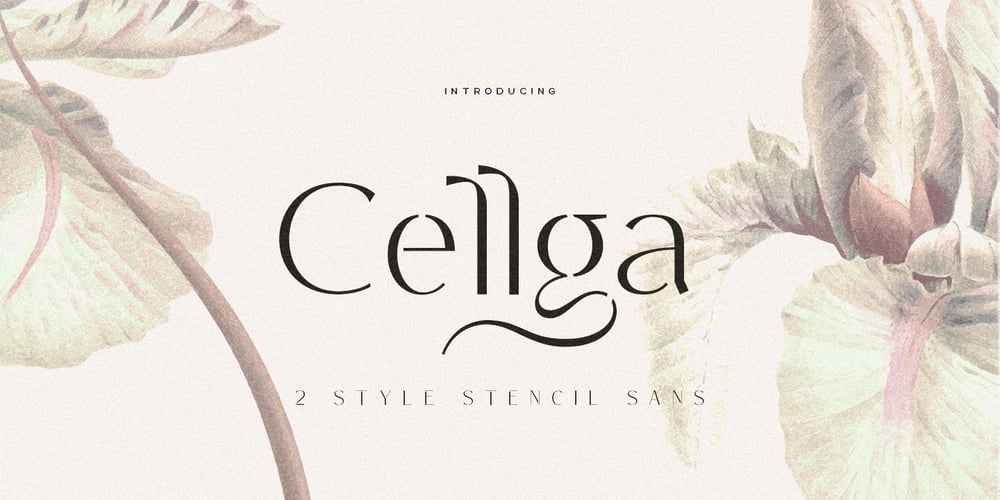
Cellga
Cellga font
Cellga Font Family was designed by Alit Suarnegara and published by Alit Design. Cellga contains 2 styles and family package options. We want to create a different feel for the stencil font style. Usually stencil fonts are synonymous with military, retro and bold characters, but here we created the Cellga font with an elegant and attractive stencil style for a modern design, combined with a subtle swash. In addition to swash in the Cellga font, there are also many alternative character shapes and unique Discreationary ligatures. So the Cellga font is very worthy of being a font collection on your computer for projects with a unique and charming elegant concept.Sans Serif typefaces such as “Cellga” are very easy to apply to any design, especially those with an elegant, modern and classic, besides that this font is very easy to use both in design and non-design programs because everything changes and glyphs are supported by Unicode (PUA).The “Cellga”contains 623 glyphs with many unique and interesting alternative options. In addition to the regular font, there is also an italic version of the Cellga font.Language Support : Latin, Basic, Western European, Central European, South European,VietnameseIn order to use the beautiful swashes, you need a program that supports OpenType features such as Adobe Illustrator CS, Adobe Photoshop CC, Adobe Indesign and Corel Draw. but if your software doesn’t have Glyphs panel, you can install additional swashes font files.